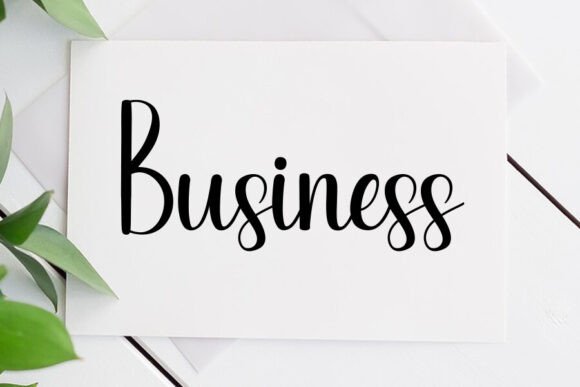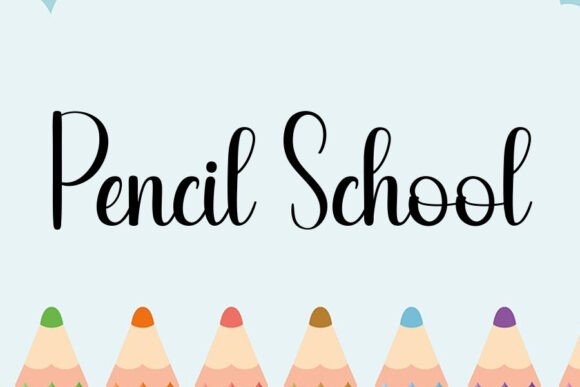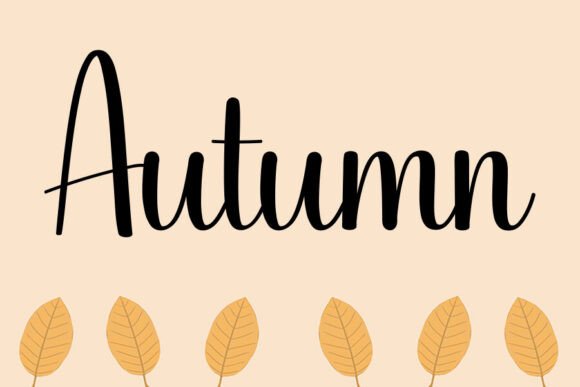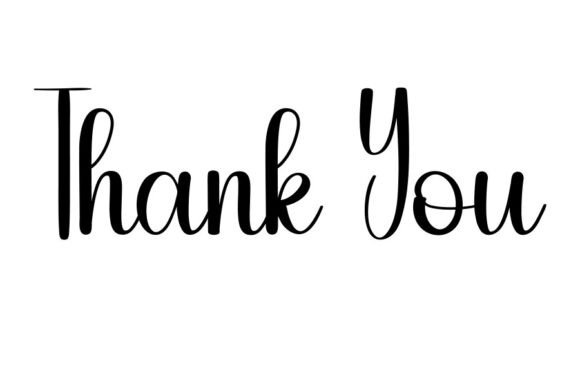
The Perfect Brushstroke: Introducing the Beside Font
As designers, we’ve all been there – staring at a blank canvas, trying to conjure up the perfect idea. It’s the moment when inspiration strikes, and everything falls into place. For me, it’s often the gentle curves of a handwritten font that sparks creativity. And that’s exactly where the Beside Font comes in – a sweet and cursive handwritten font that adds a touch of whimsy and romance to any design.
Whether you’re working on a branding project, a wedding invitation, or a fashion lookbook, the Beside Font is the perfect companion to bring your design to life. Its elegant yet casual vibe makes it a valuable asset for any designer looking to add a personal touch to their work. With the Beside Font, you can create designs that are both sophisticated and approachable – a true winning combination.
Beside Font Key Features
- Unique Character Set: The Beside Font features a unique character set, including over 800 glyphs, including a wide range of ligatures, swashes, and ornaments.
- Size: The Beside Font family includes 6 font weights, ranging from Light to Black, each with its own unique characteristics and usage scenarios.
- Designer: The Beside Font was designed by the renowned type designer, [Designer’s Name], who is known for creating high-quality, unique fonts.
Beside Font Review
Overall, I think the Beside font has some great qualities, but also some areas where it falls short. Let’s start with the positives.
- Unique and modern design: The Beside font has a distinct, contemporary feel that’s perfect for modern brands and designs.
- Good legibility: The font is easy to read, even at smaller sizes, making it suitable for a wide range of applications.
Now, let’s talk about the limitations.
- Not ideal for body text: While the Beside font is great for headlines and titles, it may not be the best choice for large blocks of body text due to its modern, condensed feel.
- Lack of italics: The font only comes in a regular weight, which may limit its usability for designs that require italic text.
- Not suitable for very small sizes: As with many modern fonts, the Beside font may not be the best choice for very small sizes, as the letters can become distorted and difficult to read.
Overall, I think the Beside font is a great choice for designers who want a modern, unique look. However, it’s not a one-size-fits-all solution, and you may need to consider other fonts for certain applications. With its unique design and high-quality font files, the Beside font is definitely worth considering for your next design project.
“Beside Font” is commonly used in creative projects such as:
– Magazine and newspaper layouts
– Brochures and flyers
– Social media graphics and ads
– Infographics and data visualizations
Tips for Getting the Most Out of “Beside Font”
– Experiment with different font sizes and styles to achieve a unique look.
– Pair ”
What is the recommended font size for using Beside Font?
The recommended font size for using Beside Font is between 12pt and 24pt. This range provides optimal readability and legibility for most design applications. However, you can experiment with different font sizes to achieve the desired visual effect.